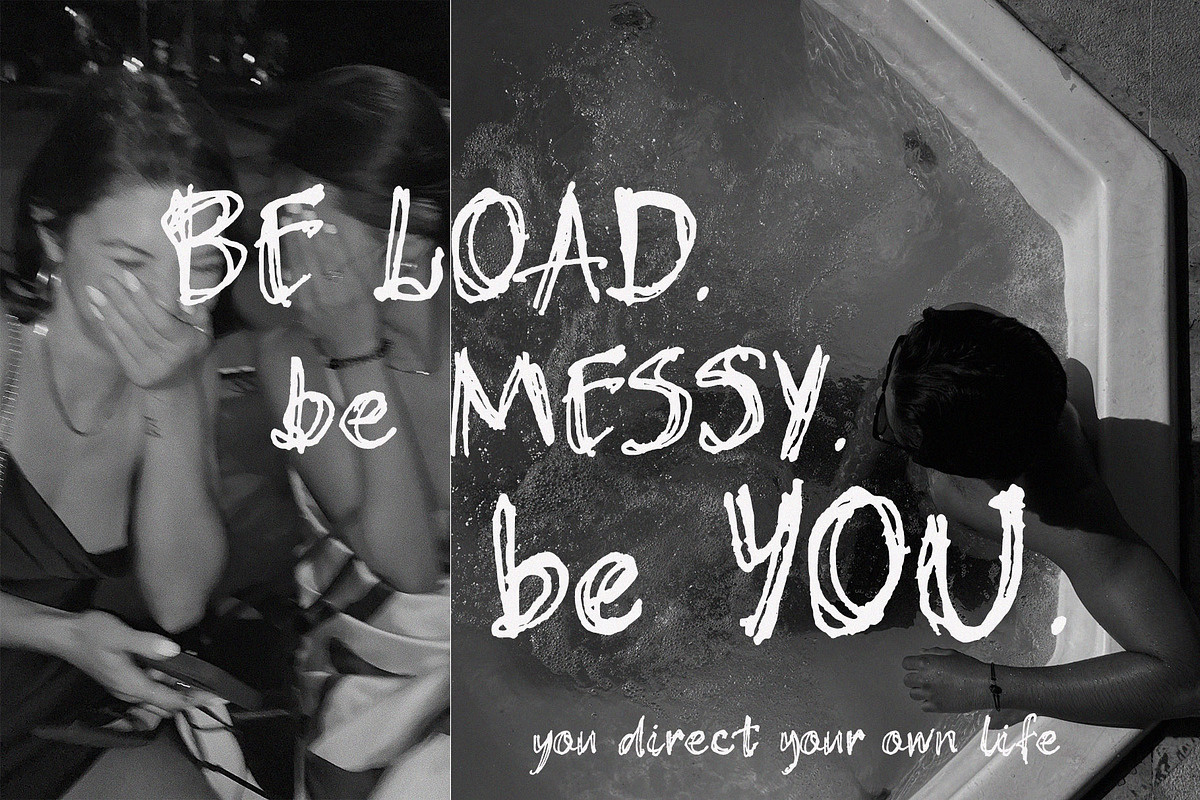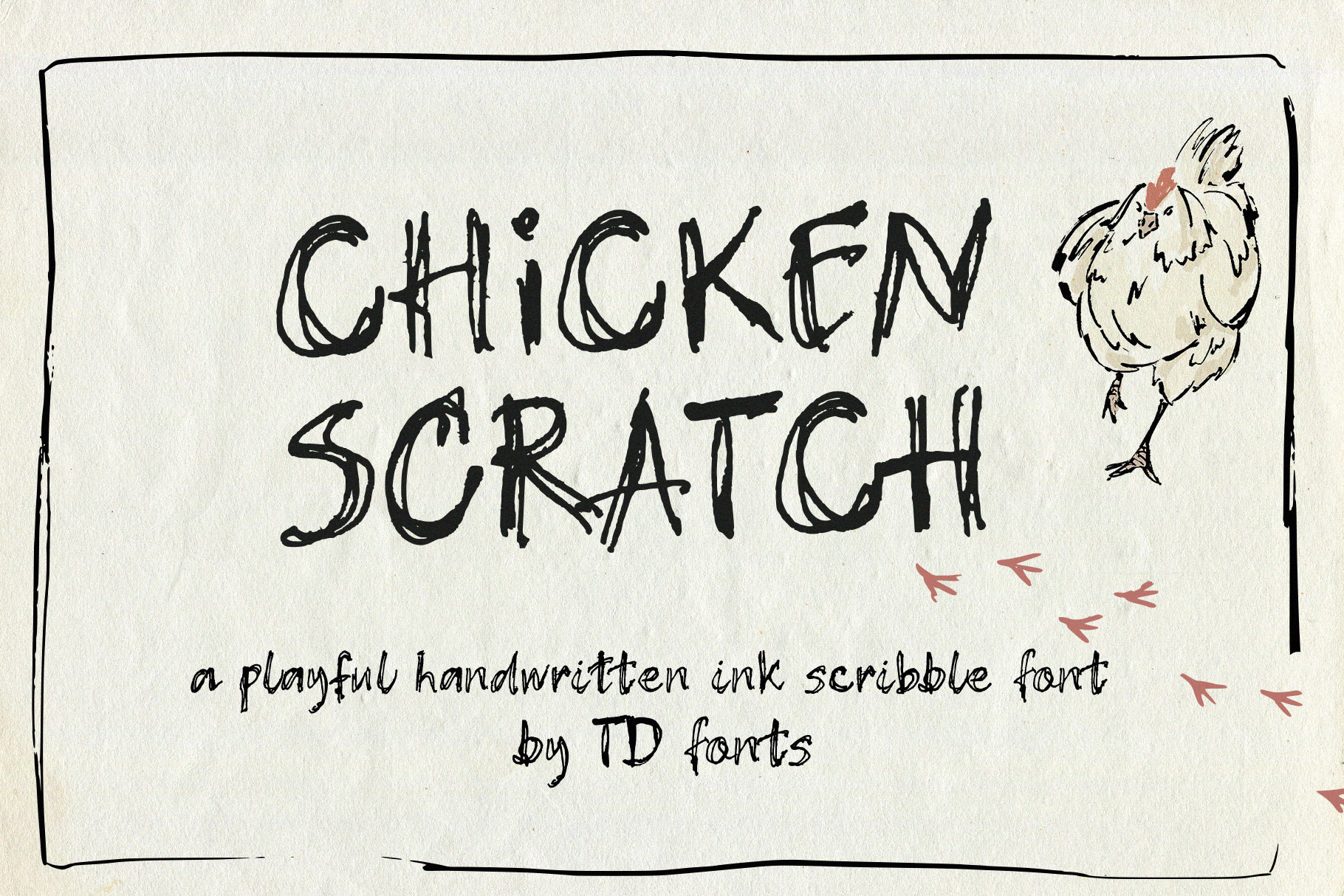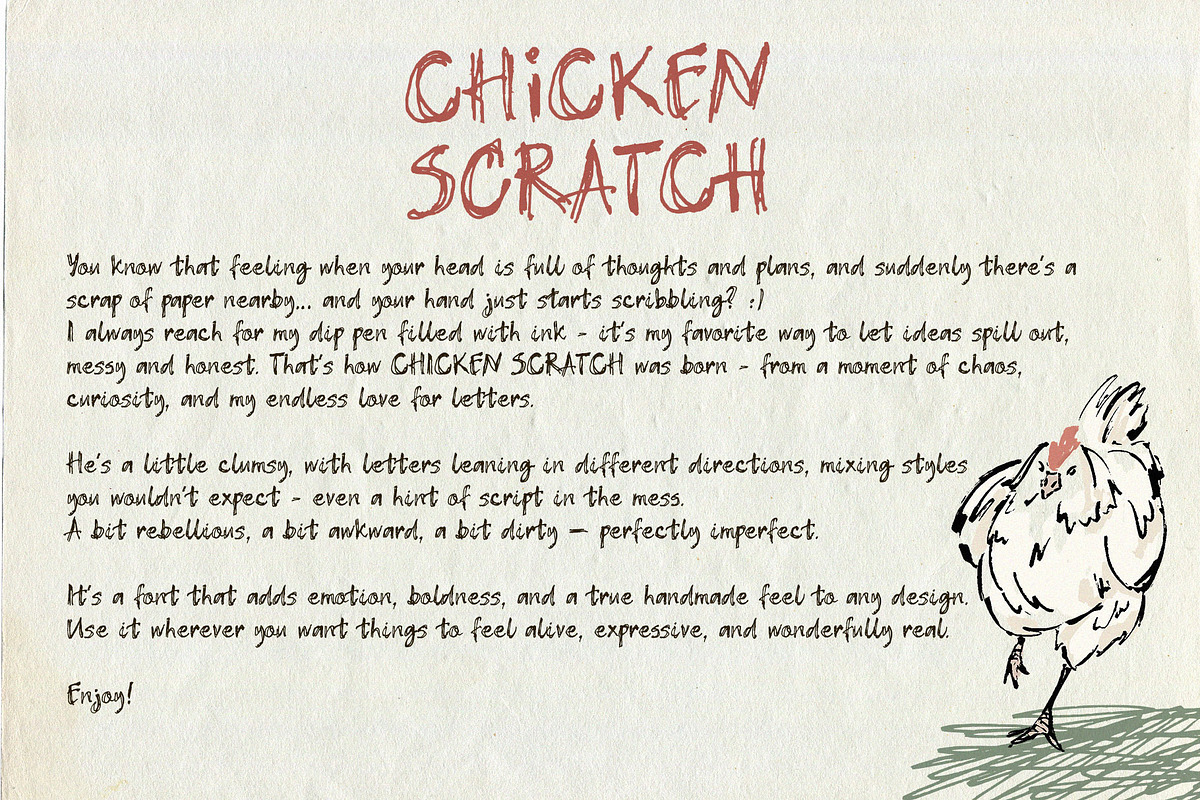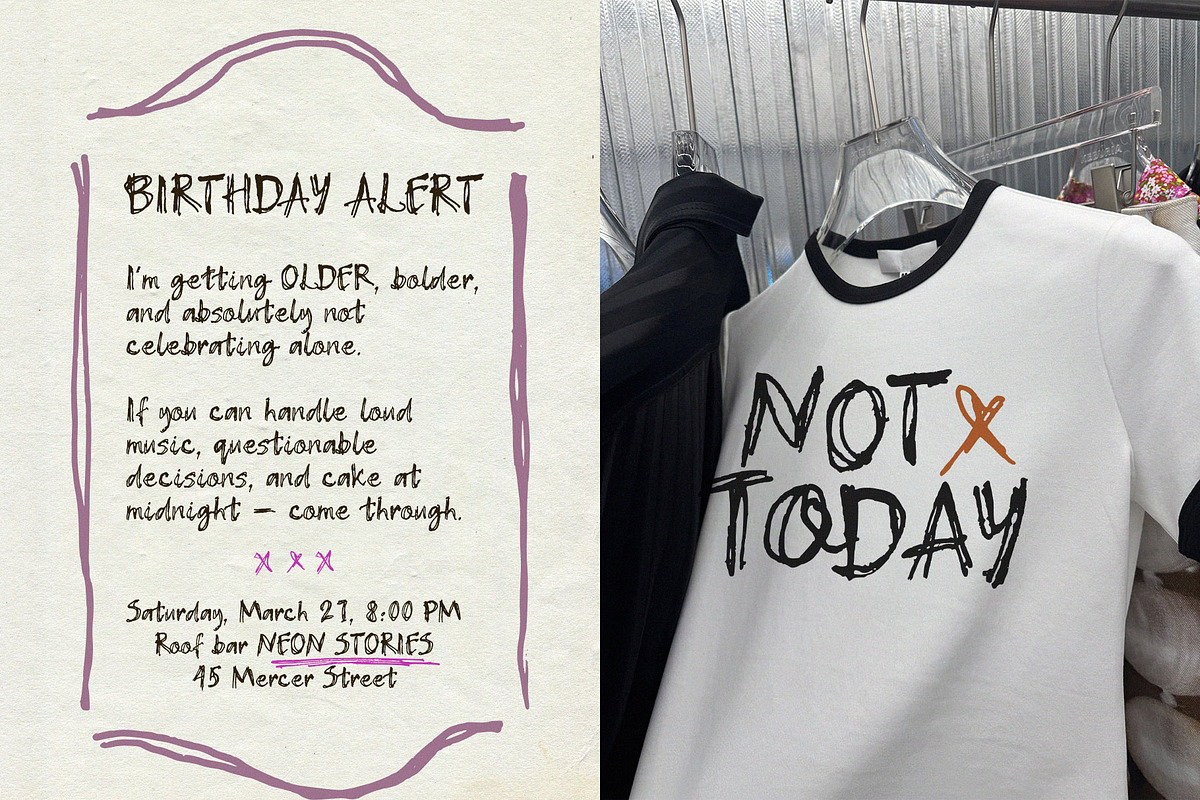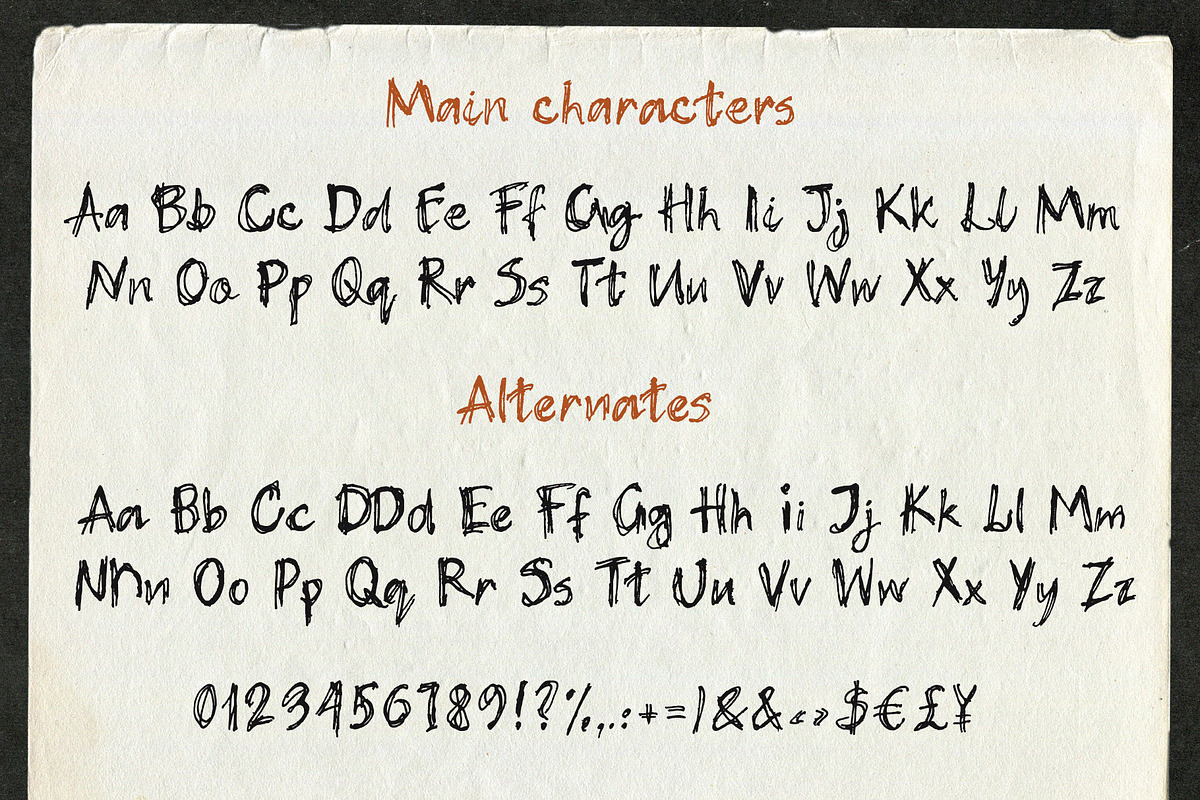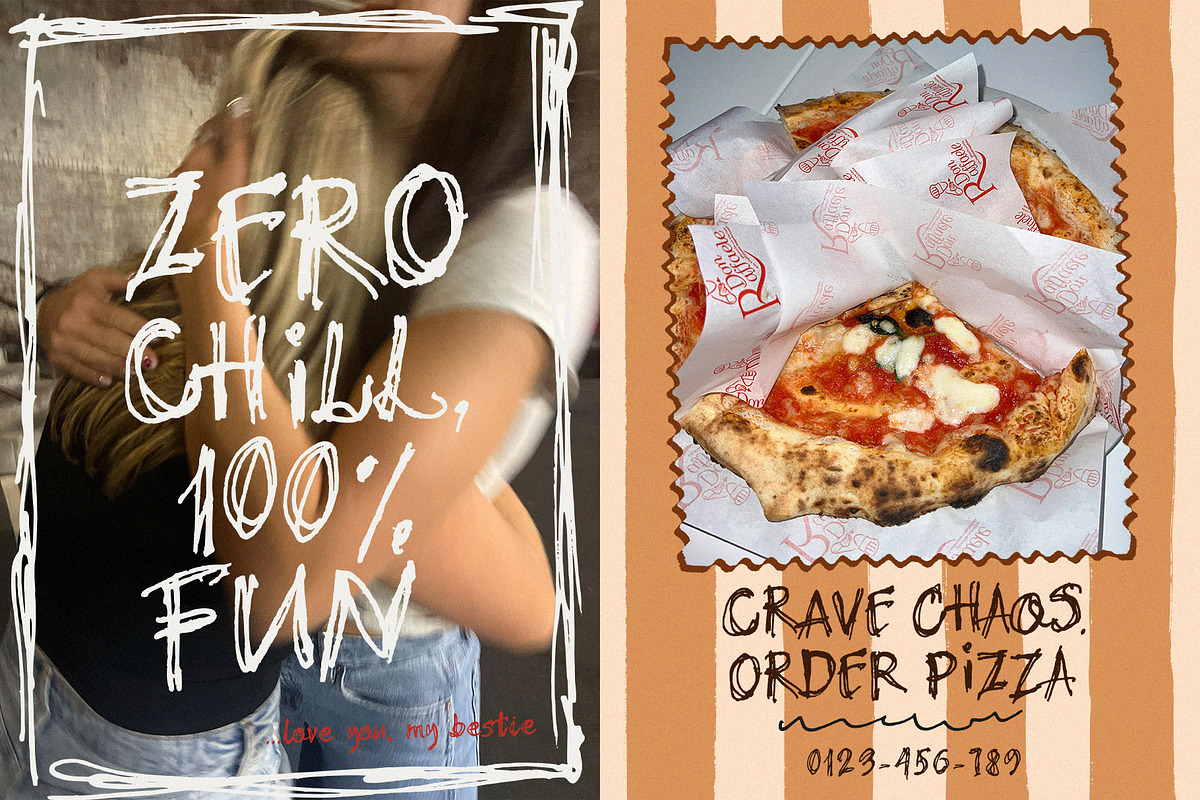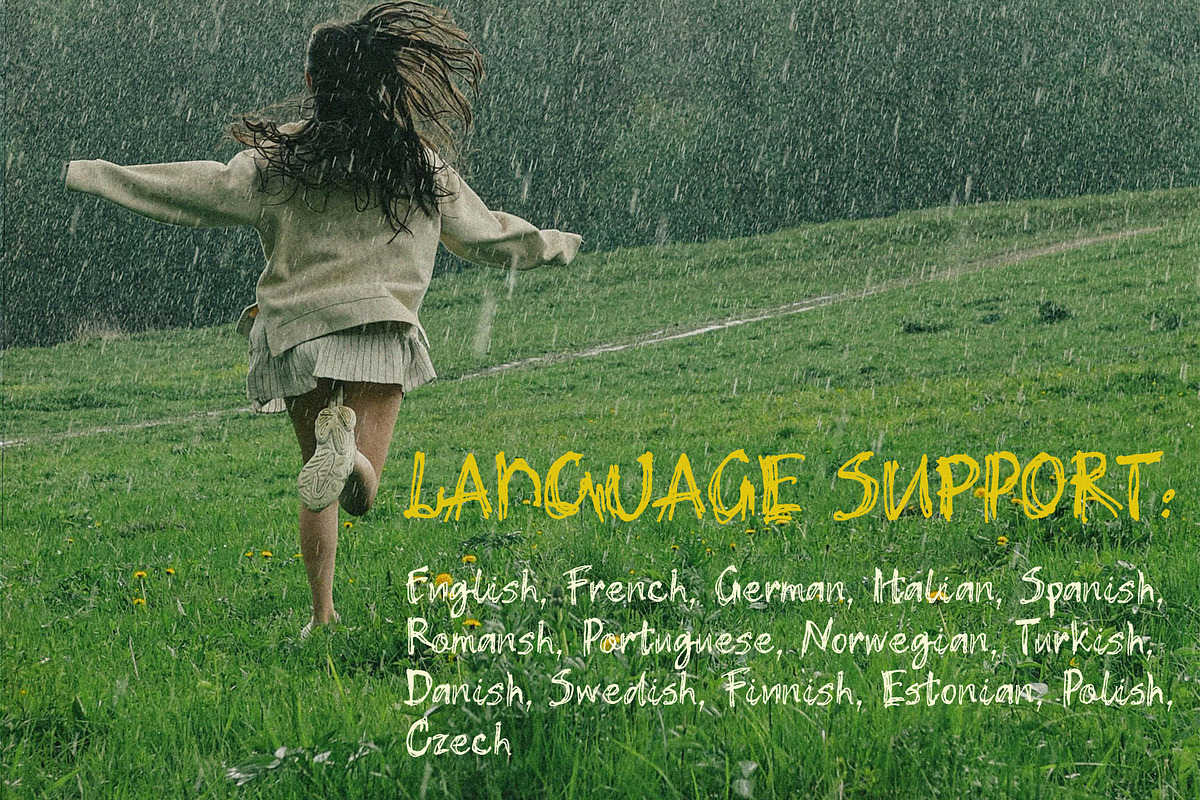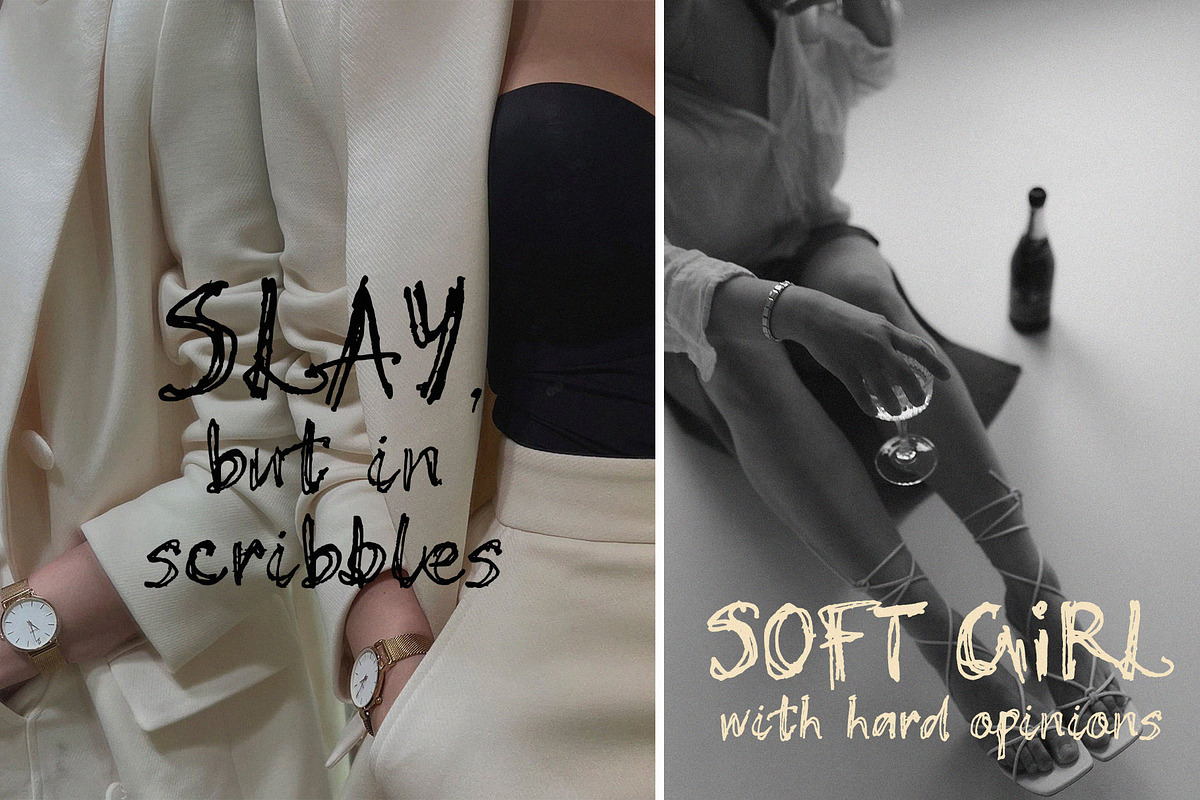
Chicken handwritten scribble font
Chicken Scratch is a wild scribble ink handwritten font inspired by raw, messy handwriting and made for bold, expressive design.
Chicken Scratch is a wild handwritten ink scribble font born from a spontaneous moment: a fountain pen, a scrap of paper, and a mind too full to stay still. Raw, messy, and completely alive — it captures the honest energy of real ink moving fast across a page.
Chicken Scratch was created in one of those moments when your mind is full, your hands just need to move, and the nearest piece of paper becomes the perfect escape. A fountain pen filled with ink, fast scribbling, no second thoughts — that spontaneous motion turned into a font that feels exactly like that moment: ink-written, scribbly, wild.
The letterforms are proudly imperfect: uppercase letters are large and angular, built from overlapping ink strokes with rough, bristling edges and raw texture that stays true to the original pen marks. Letters lean in different directions — some upright, some tilted left, some falling forward — creating an unpredictable, energetic rhythm across any headline. The lowercase brings a slightly softer energy with a hint of script, but never loses the wild handwritten character. It mixes styles a little, keeps things chaotic, and feels completely alive.
This is a font that adds emotion, boldness, and a true handmade feel to any design. Use it wherever you want things to feel honest, expressive, and wonderfully real.
Bold expressive headlines, posters & large-format print
Raw editorial layouts & zine design
Apparel, merch & print-on-demand designs
Expressive branding & packaging with a handmade feel
Social media graphics, quotes & website headers
Any project that needs a raw, human, imperfect touch
Font features:
Wild scribble handwriting style — ink fountain pen on paper, unpolished and raw
Overlapping multi-stroke letterforms with bristling, rough edges and real ink irregularities
Unpredictable directional slant — letters lean in different directions for a chaotic organic rhythm
Near-zero stroke contrast with heavy textural variation — all the drama comes from irregularity, not weight
Uppercase: large, angular, high-energy display letters — best at 48pt and above
Lowercase: slightly softer with a hint of script, readable at smaller sizes
Alternates and ligatures for natural, varied letter combinations
Display-optimised — built for headlines, not body text
The aesthetic: Chicken Scratch is not clean. It is not polished. It is not trying to be. If your project needs something raw, expressive, imperfect, and emotional — a typeface that feels like it was written in the middle of a thought — Chicken Scratch brings that wild, ink-scribbled magic to your design. It is not for every project. It is exactly right for the ones that need honesty.